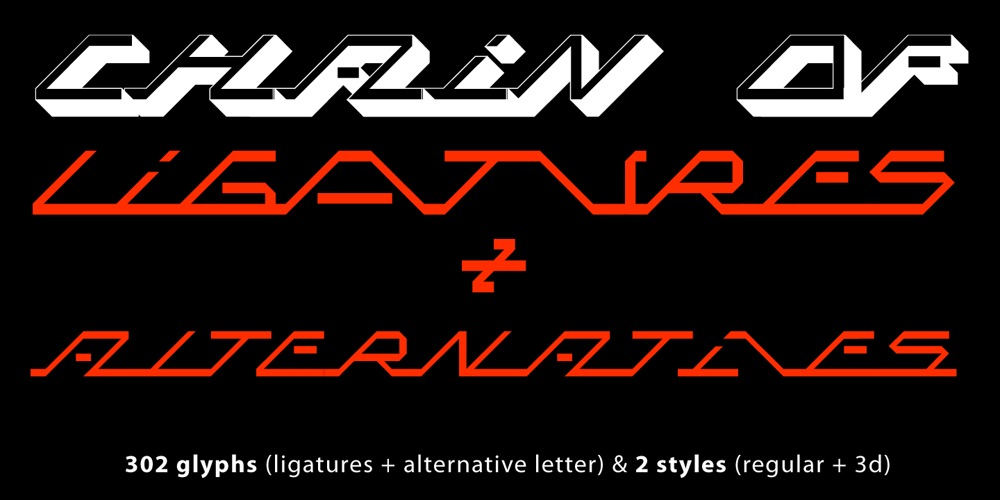
MEGA SLANT LINE
MEGA SLANT LINE font
MEGA SLANT LINE Font Family was designed by Manuel Viergutz and published by TypoGraphicDesign. MEGA SLANT LINE contains 2 styles and family package options. CONCEPT/CHARACTERISTICS This strikin­gly bold, black and exten­ded 3D font remi­nis­cent of sci-fi films and expe­ri­men­tal type­face design. The font acts as a chain of liga­tures and thus recei­ves a uni­que aes­the­tic. The uni­que let­ter forms are in sharp con­trast to other fonts and thus stand out as a uni­que sel­ling point. APPLICATION AREA Pos­ters, music cover, book cover, logos, as a head­line font for maga­zi­nes or websites … TECHNICAL SPECIFICATIONS Head­line Font | Dis­play Font | Sci-Fi Font »Mega Slant Line« Open­Type Font with 303 gly­phs – alter­na­tive let­ters and liga­tures (with accents & €) & 2 styles (regu­lar & 3d) KONZEPT/BESONDERHEITEN Diese auf­fäl­lig pla­ka­tive, fette und breit­lau­fende 3D Schrift erin­nert an Sci-Fi Filme und ist expe­ri­men­telle Schrift­ge­stal­tung. Die Schrift wirkt wie eine Kette aus Liga­tu­ren (Buch­sta­ben­ver­bin­dun­gen) und erhält somit eine ganz eigene Ästhe­tik. Die sehr eige­nen Buch­sta­ben­for­men wer­den sich deut­lich von ande­ren Schrif­ten abhe­ben und somit als Allein­stel­lungs­merk­mal her­aus­ste­chen. Der Fluss ergiebt sich aus den EINSATZGEBIETE Pla­kate aller Art, Musik Cover, Buch­co­ver, für Logos und Wort­mar­ken, als Dis­play­schrift für Zeit­schrif­ten oder Websites… TECHNISCHE INFORMATIONEN Head­line Font | Dis­play Font | Sci-Fi Font »Mega Slant Line« Open­Type Font with 303 gly­phs – alter­na­tive let­ters and liga­tures (with accents & €) & 2 styles (regu­lar & 3d)